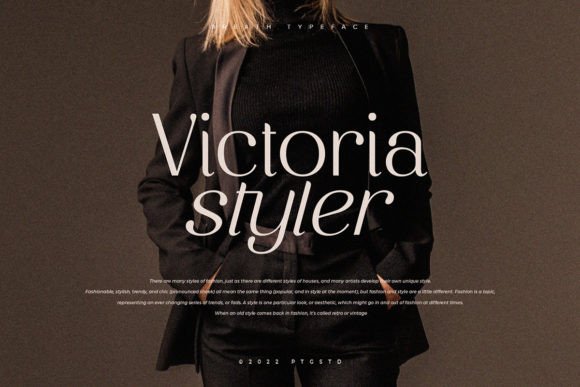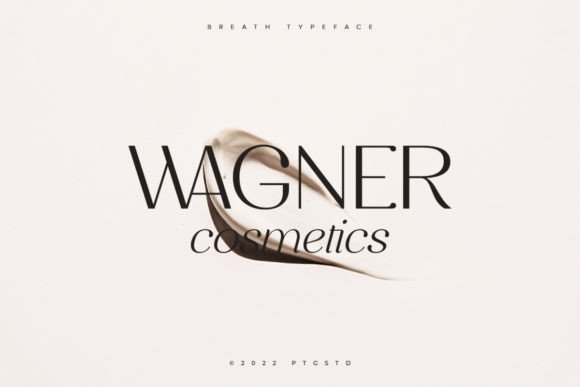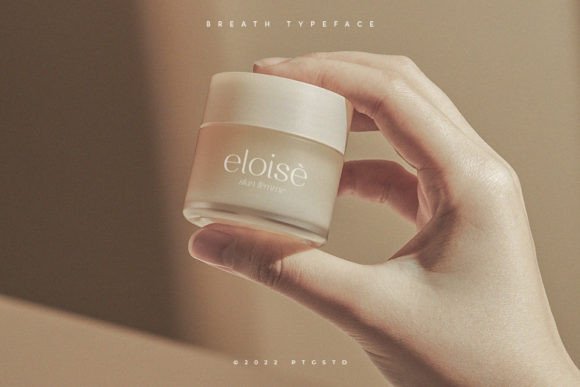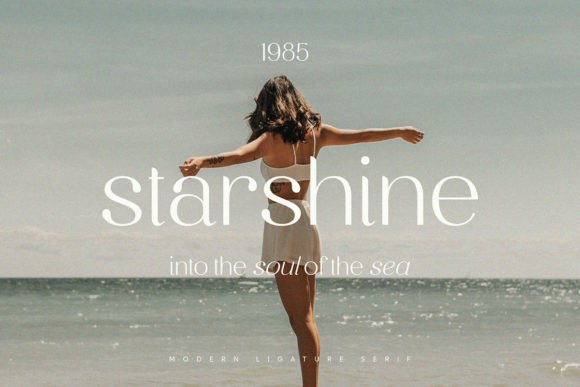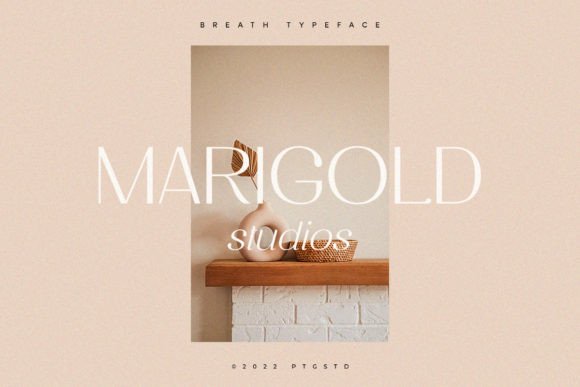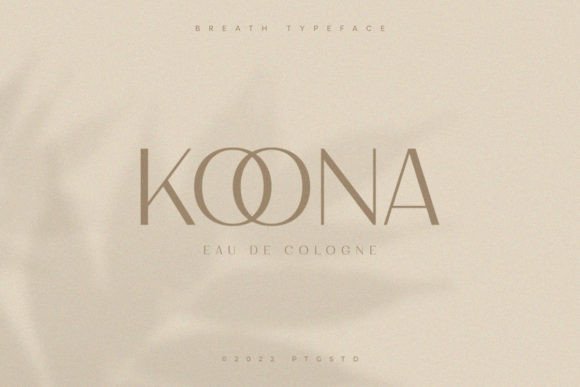
Introducing Breath Font: Elevate Your Designs with Elegance and Sophistication
In the world of typography, a well-crafted font can make all the difference in elevating your design from ordinary to extraordinary. If you’re a designer or crafter looking for a stylish and elegant serif font to enhance your fashion branding or editorial designs, look no further than Breath Font. This stunning font is defined by its smooth curves, making it perfect for creating sophisticated and eye-catching designs that exude luxury and refinement.
The Characteristics of Breath Font
Breath Font is a beautifully crafted serif font that boasts a range of characteristics that set it apart from other fonts. Its smooth curves and elegant lines make it perfect for use in high-end fashion branding, editorial designs, and any other project that requires a touch of sophistication. Whether you’re designing a logo, brochure, or website, Breath Font is sure to make a lasting impression.
Perfect for Fashion Branding and Editorial Designs
Fashion branding and editorial designs require a font that is both stylish and elegant, and Breath Font delivers on both counts. Its classic serif design makes it perfect for use in luxury fashion brands, high-end boutiques, and editorial publications that require a sophisticated and refined aesthetic. With Breath Font, you can create designs that are both timeless and on-trend, making it a versatile font that can be used in a wide range of applications.
Endless Possibilities with PUA Encoding
One of the standout features of Breath Font is its PUA (Private Use Area) encoding, which means that you can access all glyphs and swashes with ease. This allows you to experiment with different design elements and create unique and intricate designs that showcase your creativity. With PUA encoding, you can unlock the full potential of Breath Font and take your designs to the next level.
Benefits of Using Breath Font
- Elegant and sophisticated design: Breath Font is perfect for designers who want to create high-end designs that exude luxury and refinement.
- Smooth curves and classic lines: The font’s smooth curves and classic lines make it perfect for use in fashion branding and editorial designs.
- PUA encoded for easy access to glyphs and swashes: With PUA encoding, you can access all glyphs and swashes with ease, giving you endless possibilities for creative expression.
- Perfect for a wide range of applications: Breath Font can be used in a wide range of applications, from logos and brochures to websites and editorial publications.
Tips and Tricks for Getting the Most Out of Breath Font
To get the most out of Breath Font, here are a few tips and tricks to keep in mind:
- Experiment with different font sizes and styles: Breath Font looks great in a range of font sizes and styles, so don’t be afraid to experiment and find the perfect combination for your design.
- Use the font’s glyphs and swashes to add creative flair: With PUA encoding, you can access a range of glyphs and swashes that can add creative flair to your designs.
- Pair the font with other design elements: Breath Font looks great when paired with other design elements, such as images and graphics. Experiment with different combinations to find the perfect look for your design.
In conclusion, Breath Font is a stylish and elegant serif font that is perfect for fashion branding and editorial designs. With its smooth curves and classic lines, it’s a versatile font that can be used in a wide range of applications. And with PUA encoding, you can access all glyphs and swashes with ease, giving you endless possibilities for creative expression. Whether you’re a designer or crafter, Breath Font is a must-have font that is sure to elevate your designs to the next level.